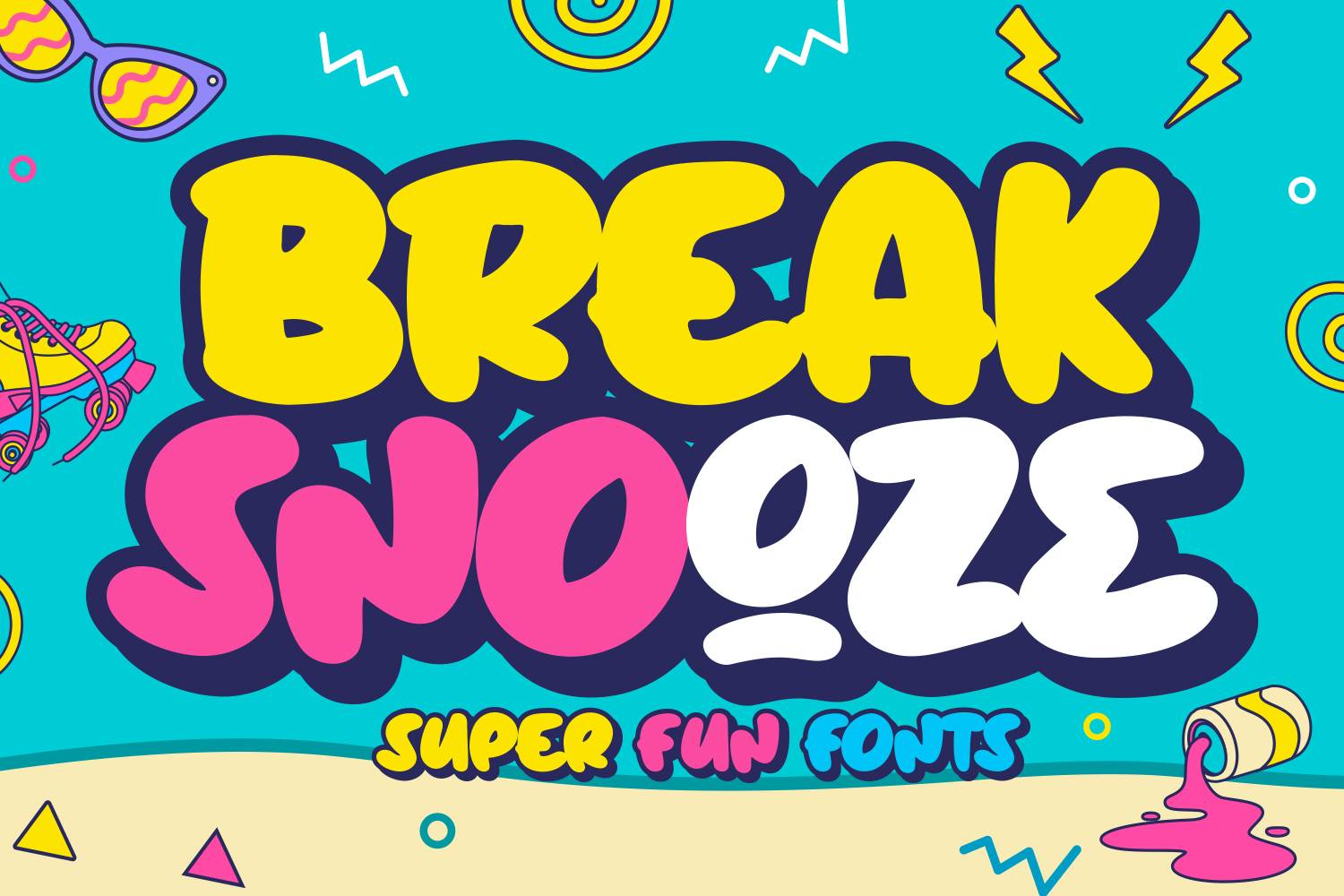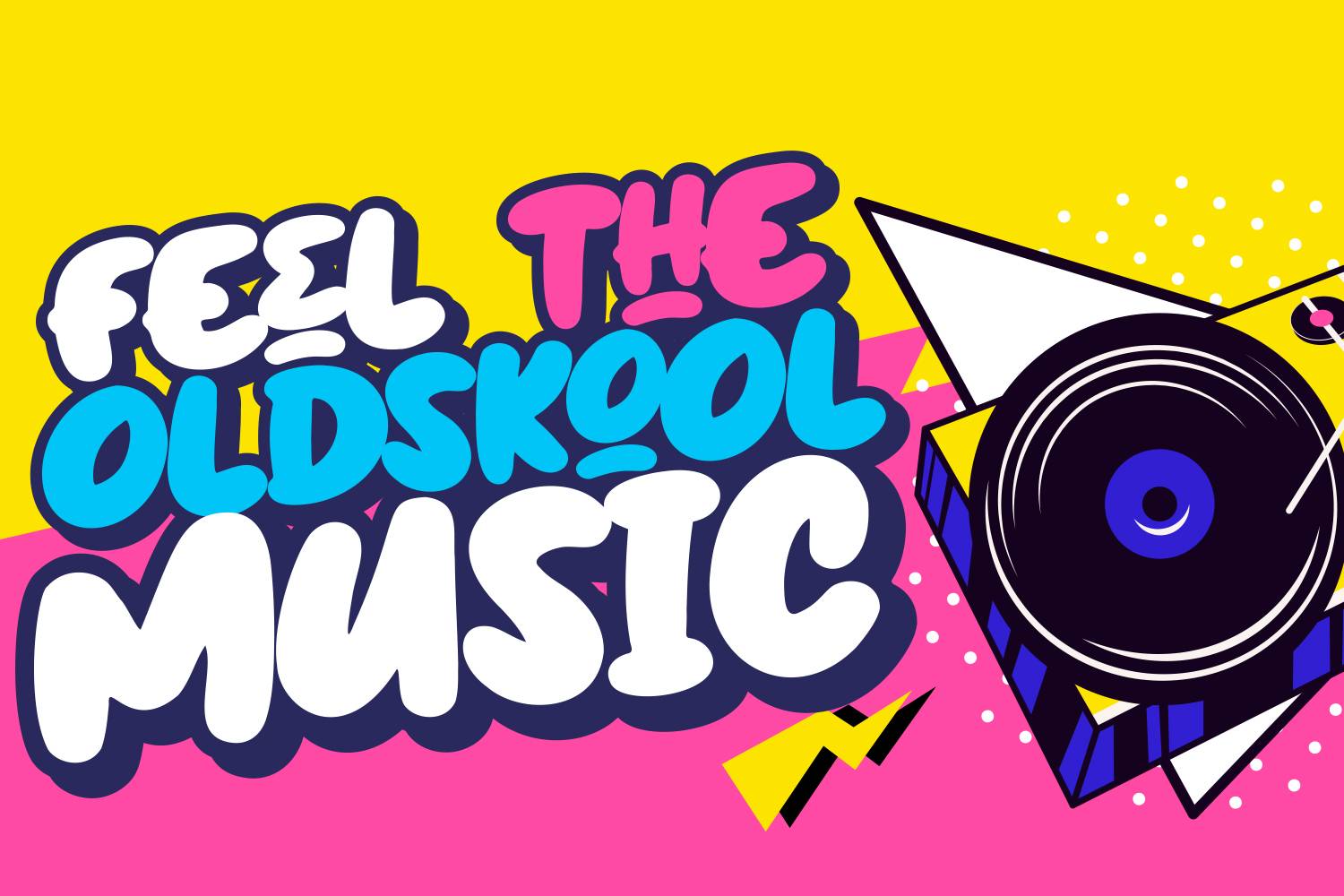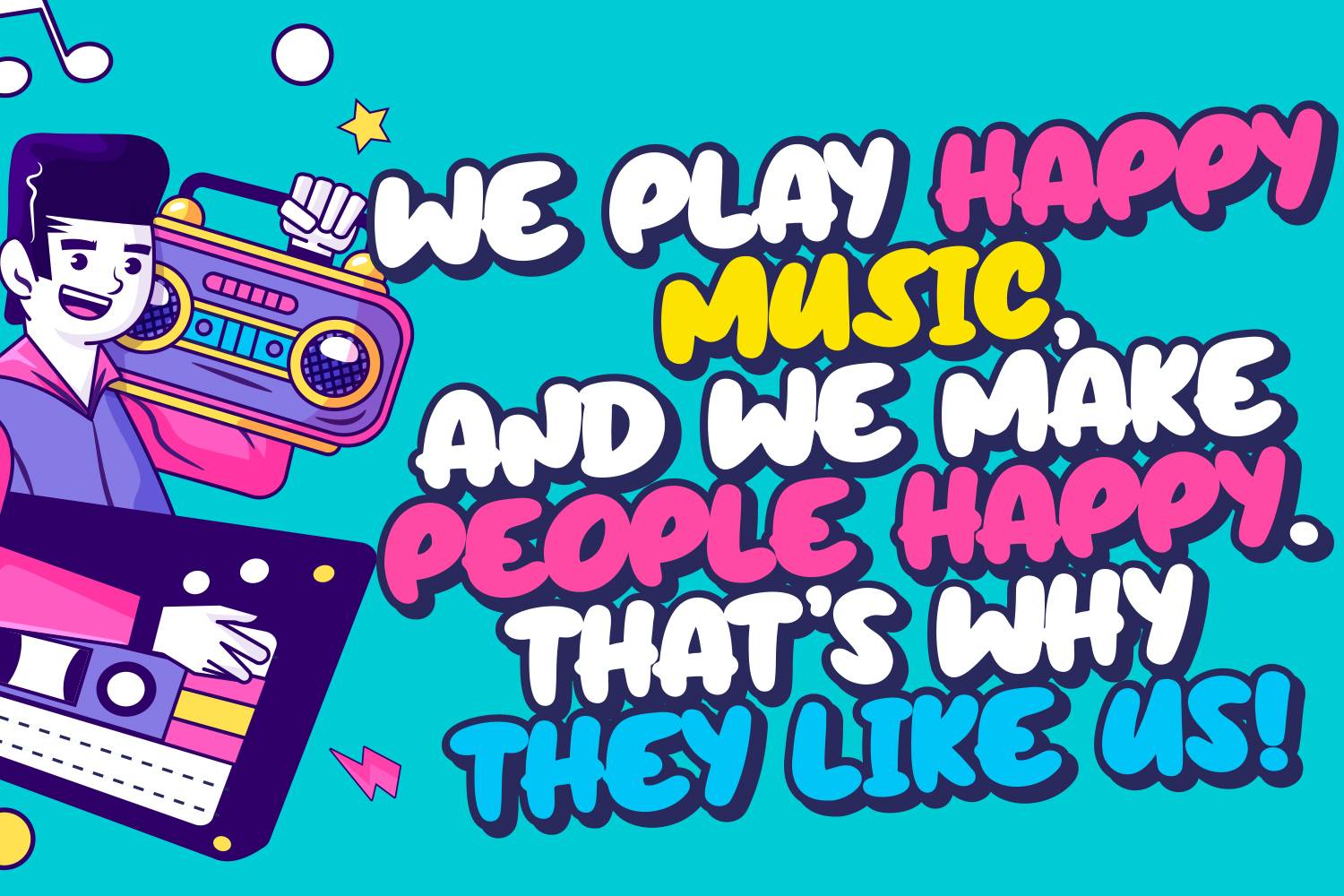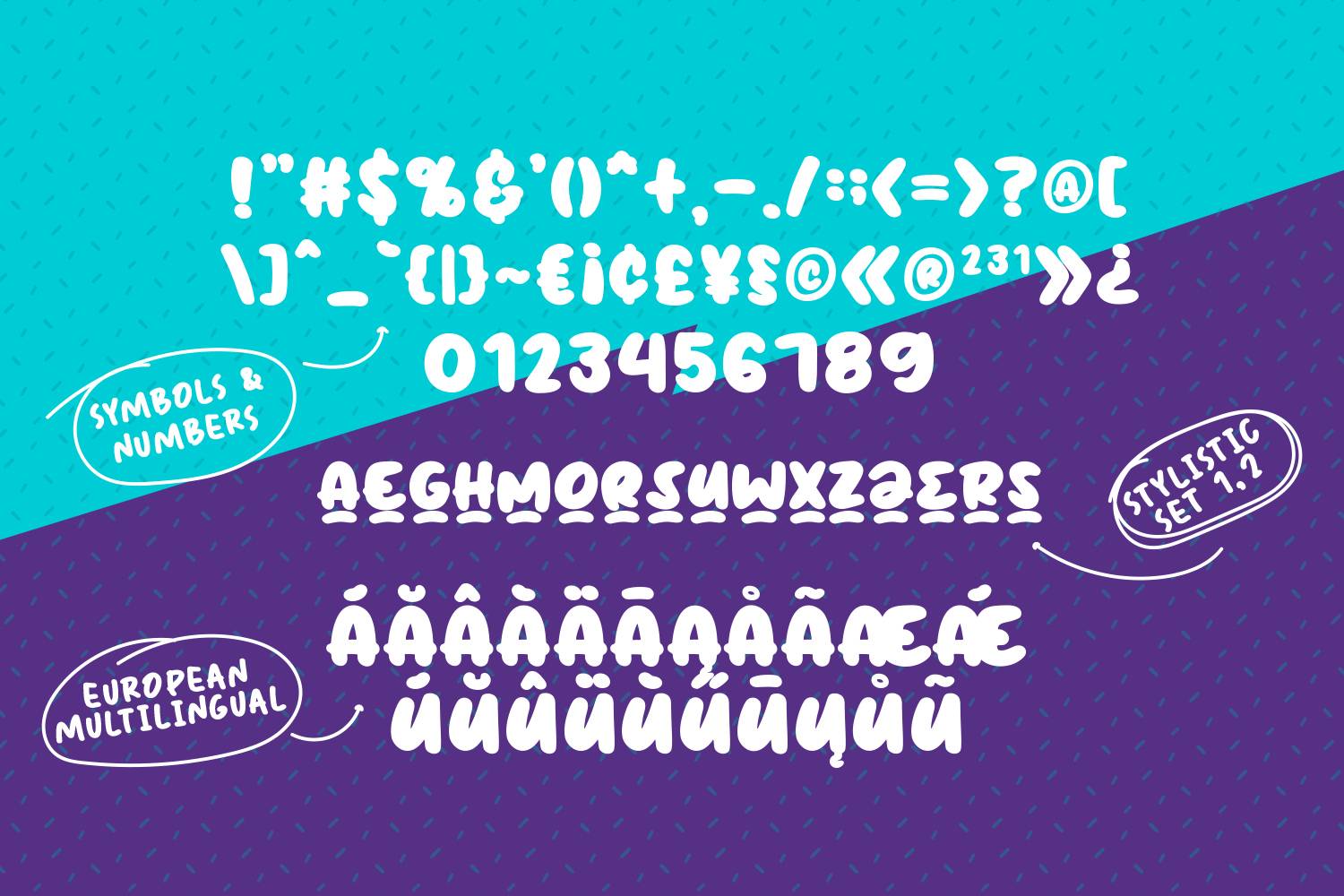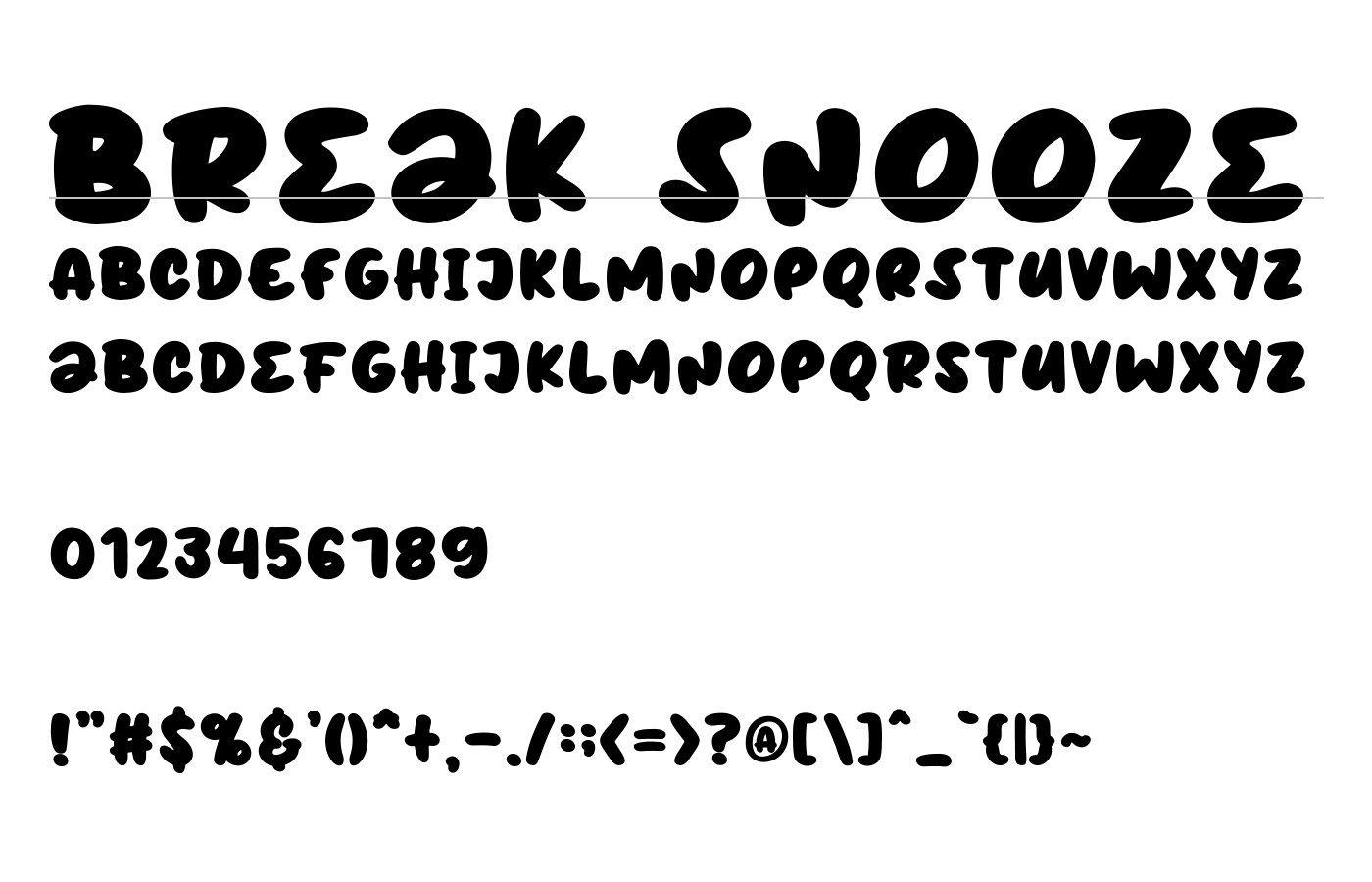
Break Snooze is a bold, rounded sans serif font with a playful and friendly character. Its thick, soft-edged letterforms and chunky shapes create an approachable, casual feel that works well for fun branding, children's products, and informal headlines. This font brings an energetic and cheerful vibe, making it ideal for eye-catching logos, posters, or packaging that aims to connect with a lively audience.
Break Snooze Font
About Break Snooze Font
| Font family | Break Snooze Font |
| Release date | 2021-07-01 |
| Designer | Stefie Justprince |